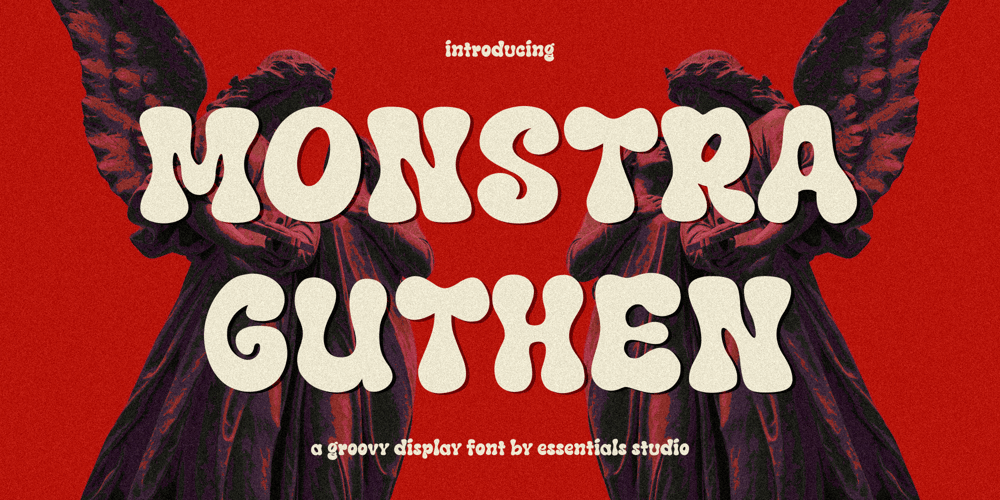
Monstra Guthen
Monstra Guthen font
Monstra Guthen Font Family was designed by Sulthan Mada Maulana Tsani and published by Essentials Studio. Monstra Guthen contains 1 styles and family package options. Introducing by Essentials StudioProudly Present, Monstra Guthen Is a A Modern Groovy Display FontMonstra Guthen is perfect for product packaging, branding project, megazine, social media, wedding, or just used to express words above the background.